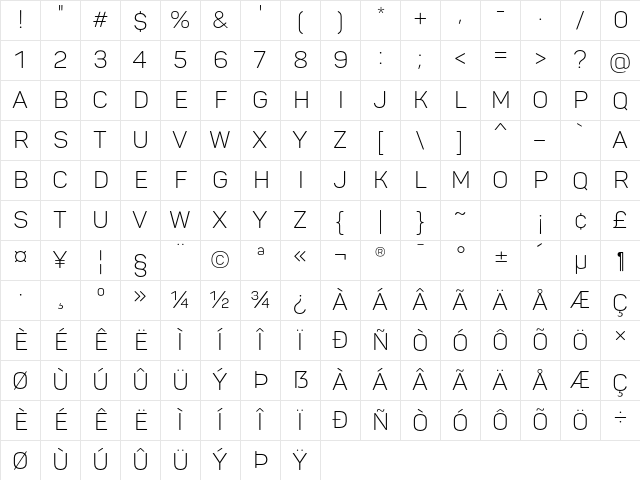
Panton Light Caps
Foundry: Fontfabric LLC
Designer: Ivan Petrov, Svet Simov
Design Context for Panton
Panton is a composed and adaptable typeface that performs quietly and consistently across a wide range of design contexts. Its slender proportions lend an understated elegance to any composition.